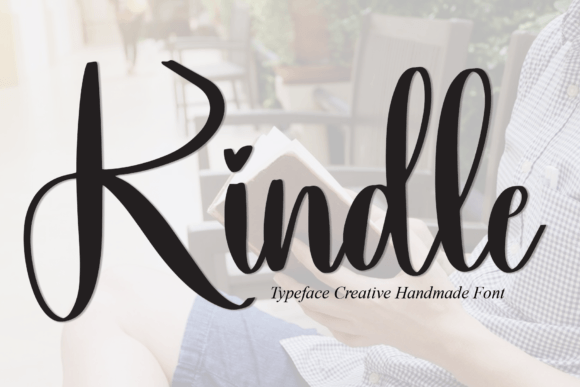
Are you looking to add a touch of elegance to your next project? Look no further than the Kindle Font collection. Created by the talented team at andikastudio, this modern and neat handwritten font is perfect for anyone looking to add a touch of sophistication to their work.
Whether you're working on branding for a beauty company or creating invitations for a special event, Kindle Font is the perfect choice. Its delicate script style adds a unique touch of beauty to any design, and its versatile nature allows it to work with a wide range of themes and styles.
One of the best things about Kindle Font is its potential to breathe new life into your creative projects. Whether you're a seasoned designer or just starting out, this font collection will give your work the boost it needs to stand out from the crowd. With its captivating curves and elegant letterforms, Kindle Font is sure to leave a lasting impression on anyone who sees it.
But don't just take our word for it. Try Kindle Font for yourself and see the difference it can make in your designs. From wedding invitations to social media graphics, this font collection is sure to become a staple in your creative toolkit.
So why wait? Download Kindle Font today and start creating beautiful designs that capture the essence of your brand. With its emotional appeal and eye-catching style, this font collection is sure to be a hit with anyone who sees it.